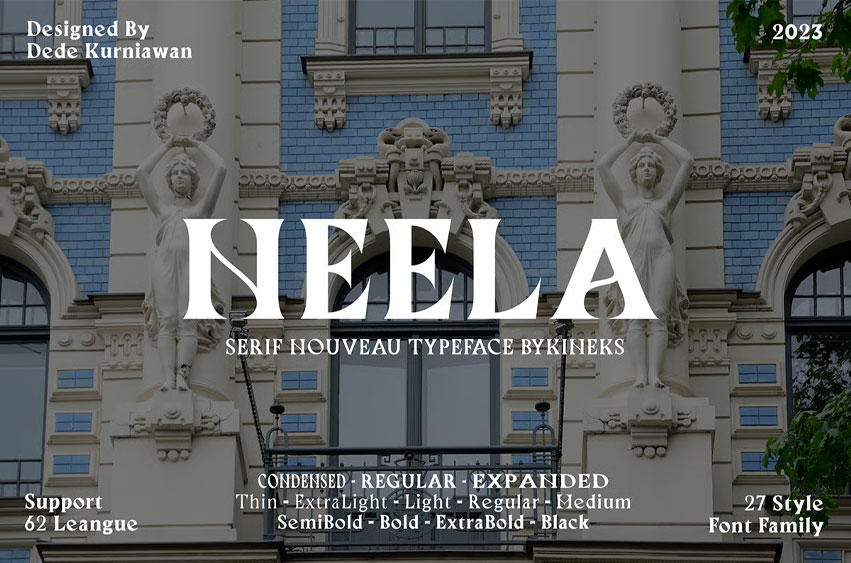
Neela Font
Neela Font is an elegant Art Nouveau-inspired serif typeface designed to meet a wide range of creative needs. With a complete family of 27 styles—from Thin to Black, including Condensed, Normal, and Expanded widths—Neela offers exceptional flexibility for both display and text applications.
Its design blends sleek, refined letterforms with subtle Art Nouveau flourishes, creating a balance of sophistication and decorative charm. Perfect for projects that demand timeless elegance, Neela elevates your design with distinctive character and versatility.
• 27 Styles (Thin, ExtraLight, Light, Regular, Medium, SemiBold, Bold, ExtraBold, Black, plus Condensed & Expanded widths)
• Distinctive Art Nouveau details with modern usability
Neela is the ideal choice for designers seeking a versatile Art Nouveau serif that adapts seamlessly from editorial projects to brand identities.